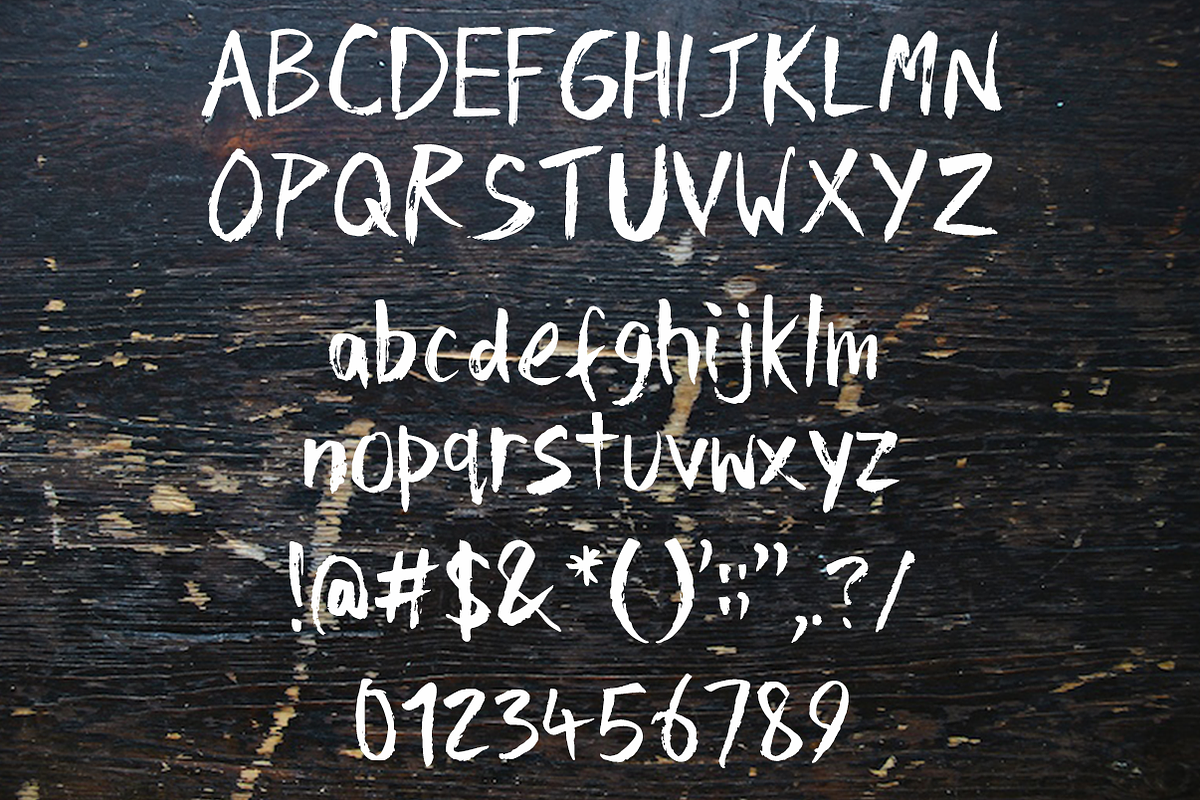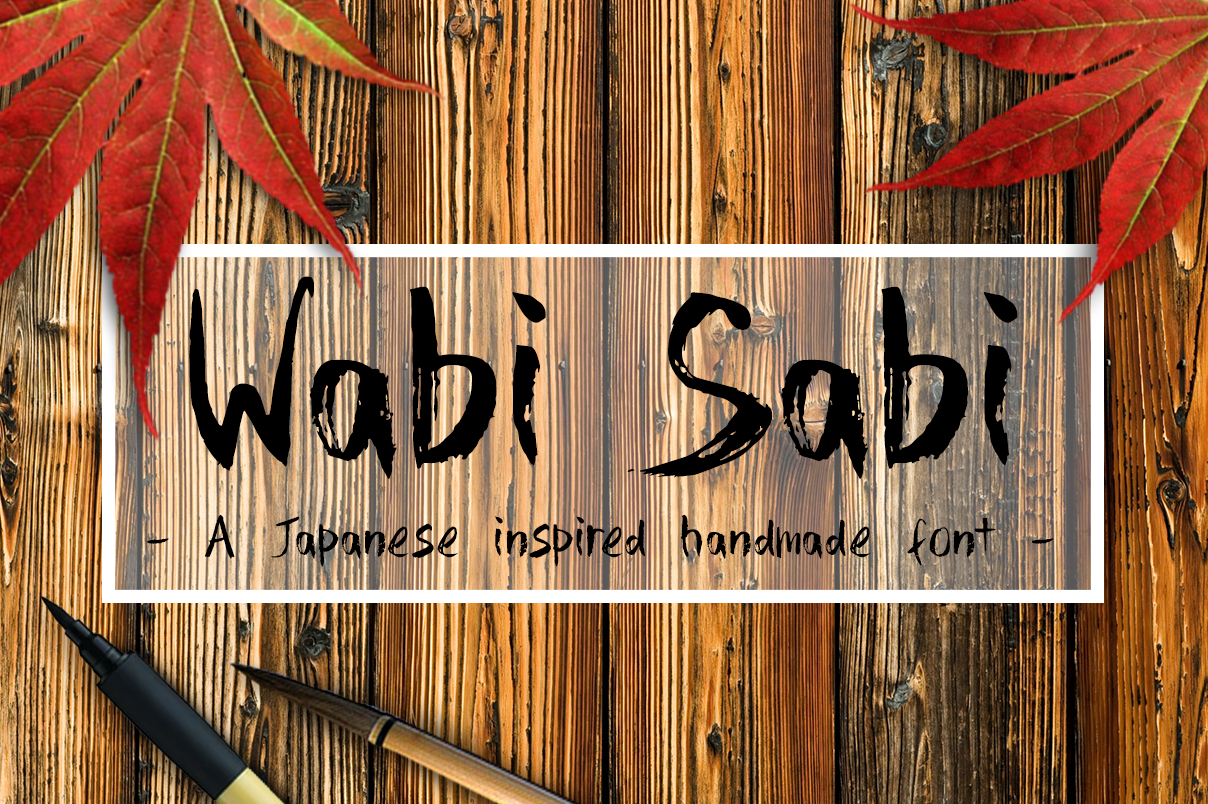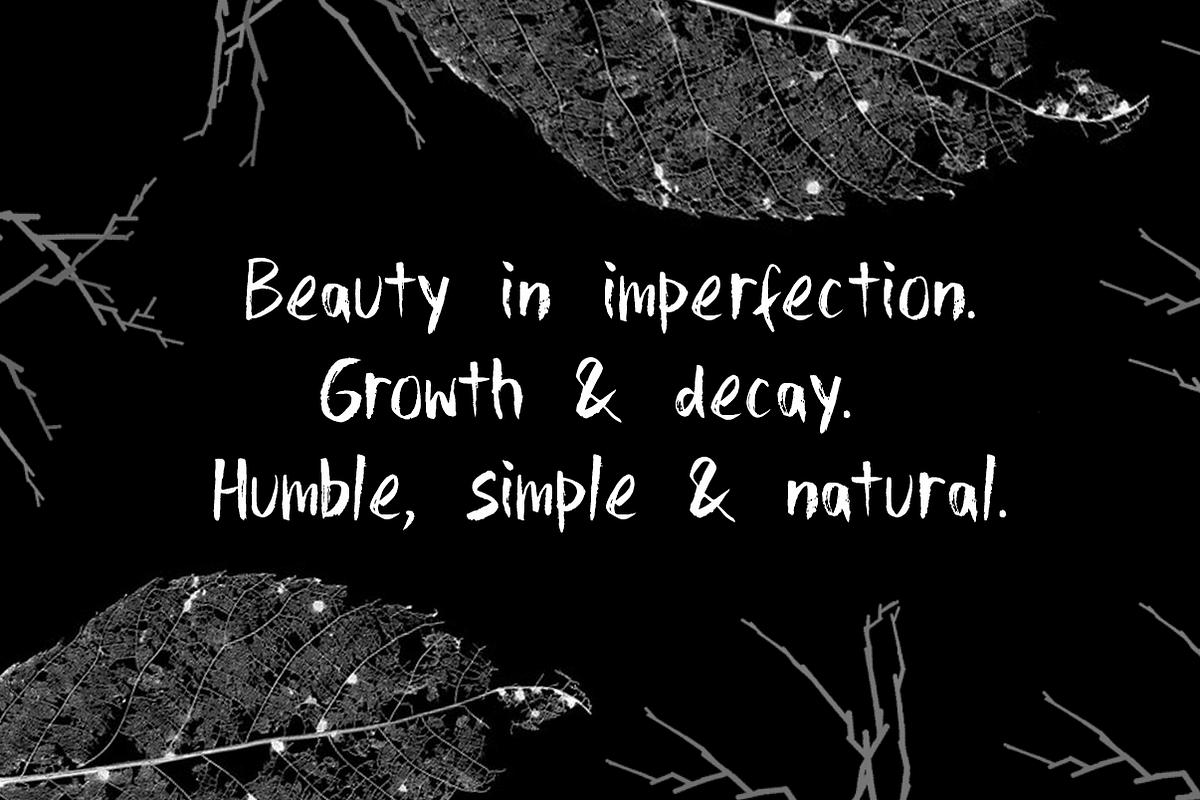
Wabi Sabi Handmade Font
I'm super excited to announce the arrival of my very first typeface, Wabi Sabi
A hand drawn font using techniques that are associated with the Japanese art of Wabi Sabi. Wabi Sabi is an appreciation of beauty in all things, imperfection, incompleteness and impermanence. It is rough, earthy and created with a Japanese brush pen.
The font is currently available with the characters in the image above and I will soon adding extra European characters and other symbols.